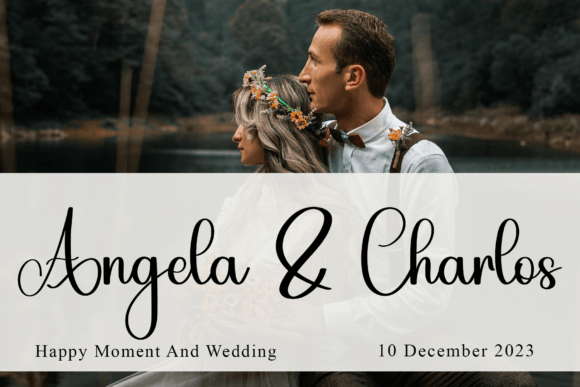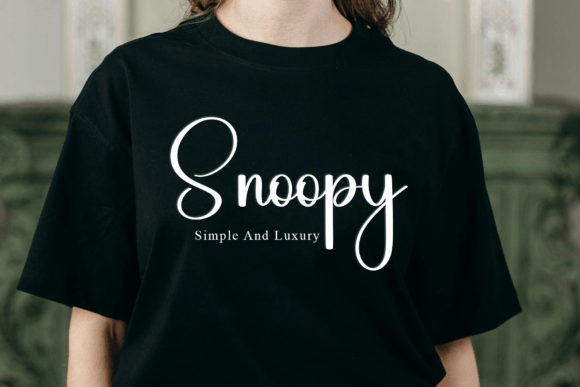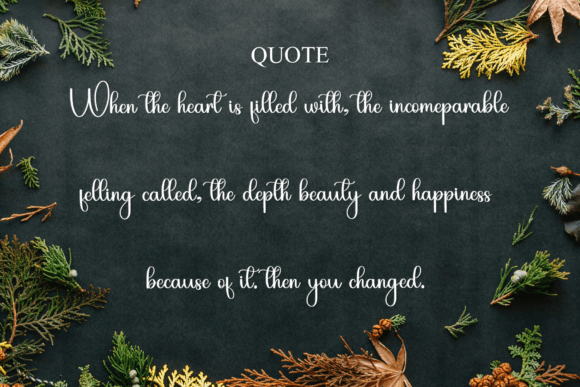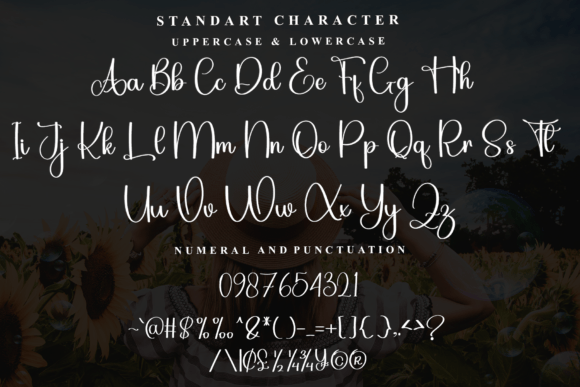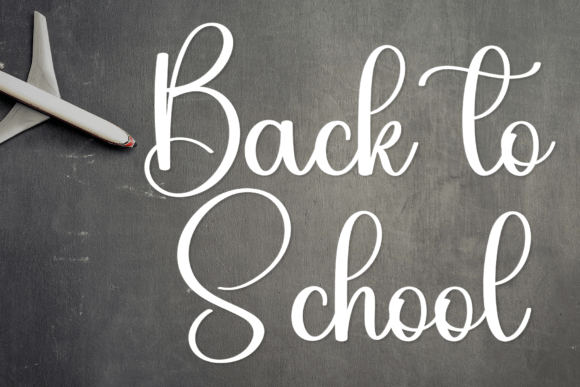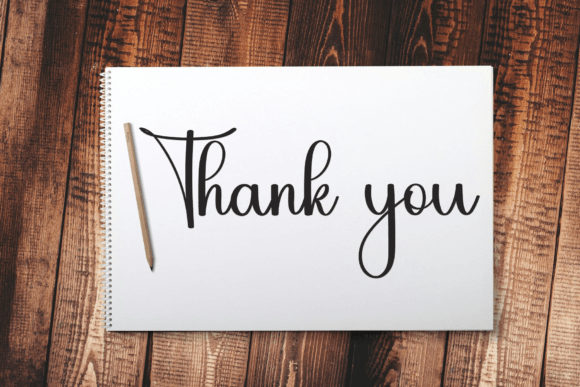
There’s something special about the moment when a font clicks – the way it elevates your design, speaks to your audience, and leaves a lasting impression. It’s a feeling that can be hard to find, but when you do, it’s pure magic. For designers looking to add a touch of elegance and sophistication to their work, the Autography Font is a game-changer.
This beautiful, refined handwritten font is perfect for logos, branding, invitations, stationery, wedding designs, social media posts, and much more. Its classy, modern look is sure to turn heads and leave a lasting impression. And with its PUA encoding, accessing all of the amazing glyphs and ligatures is a breeze, making it a valuable addition to any designer’s toolkit.
Autography Font Key Features
- Font Family: Autography is a unique font family designed for handwritten and calligraphic effects. It is available in various styles, including Regular, Italic, Bold, and Bold Italic.
- Character Set: The font family includes a wide range of characters, including Latin, Cyrillic, and Greek alphabets, as well as punctuation and symbols.
- Unique Characteristics: Autography Font is known for its elegant, cursive script and intricate details, making it ideal for use in invitations, certificates, and other formal documents.
Review of Autography Font
Overall, I think Autography Font has some great qualities that make it a decent choice for designers. ✨ Here are some of the things I like:
- Unique and elegant design: Autography Font has a distinctive style that’s both classic and modern.
- Highly legible: The font is easy to read, even at small sizes, which makes it perfect for body text.
- Good for titles and headings: The font’s flair and swashes make it a great choice for titles and headings that need a bit of flair.
- May not be suitable for all audiences: The font’s design may not be suitable for all audiences, particularly those who prefer a more minimalist or sans-serif font.
- Can be difficult to customize: The font’s unique design makes it challenging to customize, particularly for those who are not experienced designers.
- May not work well with all backgrounds: The font’s design may not work well with all backgrounds, particularly those with high contrast or busy patterns.
Overall, I think Autography Font is a solid choice for designers who want a unique and elegant font. While it may have some limitations, its strengths make it a great addition to any design project.
Tips for Getting the Most Out of Autography Font
Autography Font is a unique and creative font that can add a personal touch to your designs. Here are some tips for getting the most out of it:
- Use it for titles and headings to add a touch of elegance.
- Combine Autography Font with other creative fonts to create a bold and eye-catching design.
Autography Font is a versatile font that can be used in a